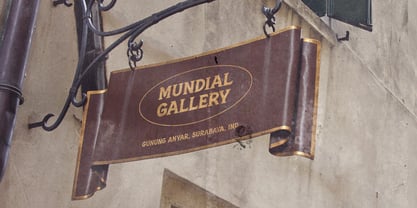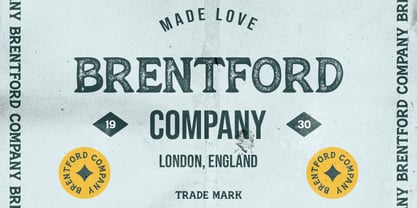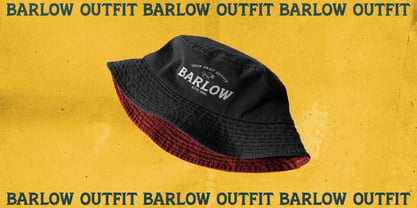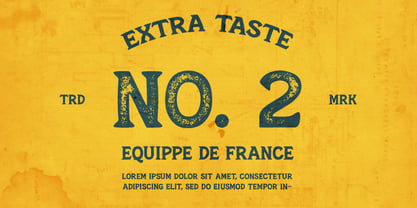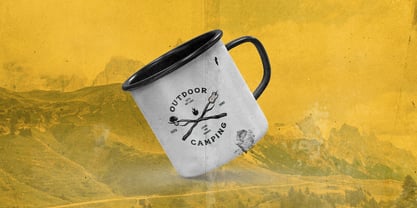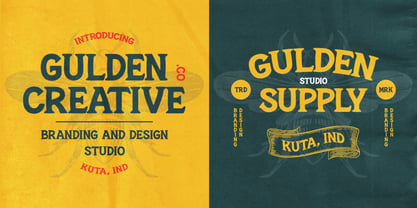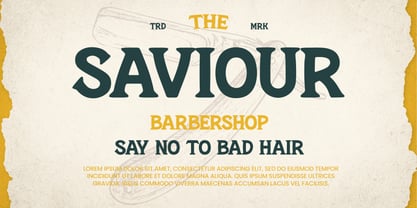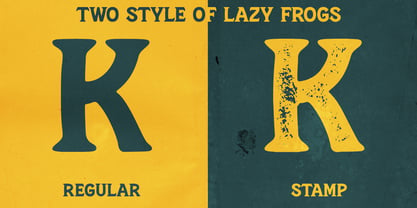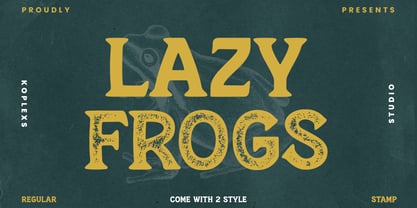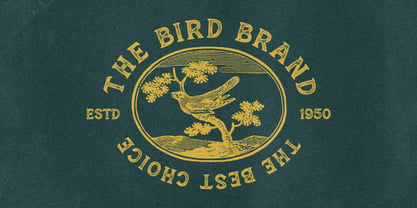
Lazy Frogs
by Koplexs Studio
The Lazy Frogs Font Family was designed by Ahmad Muslimin and published by Koplexs Studio. Lazy Frogs contains 2 styles and family package options. More about this family
Lazy Frogs Font is a bold vintage serif typeface inspired by classic retro signage, old-school packaging, and handcrafted adventure branding. Designed with authentic textured details and available in two styles — Regular and Stamp — this font brings timeless character and rustic charm to every design project.
Perfect for designers looking for a versatile vintage font with a modern edge, Lazy Frogs Font works beautifully for logos, labels, posters, packaging, headlines, apparel, barbershop branding, coffee shop visuals, outdoor themes, and editorial layouts. The textured stamp style adds a handcrafted and worn effect, creating a natural retro aesthetic that feels authentic and eye-catching.
With strong serif shapes and bold personality, Lazy Frogs Font is ideal for creating impactful branding and memorable typography across print and digital media.
Designers: Ahmad Muslimin
Foundry: Koplexs Studio